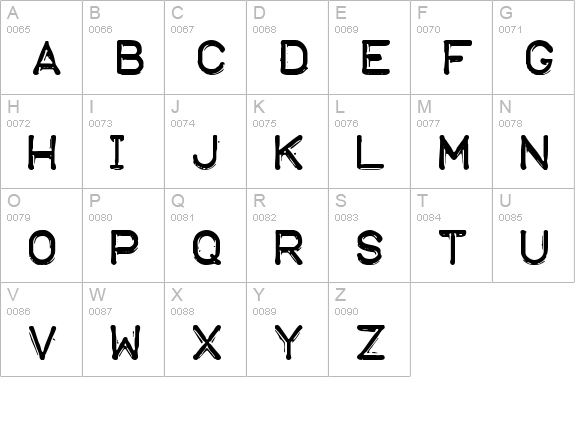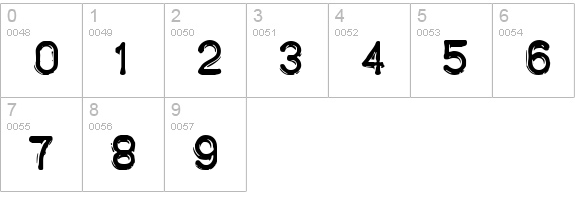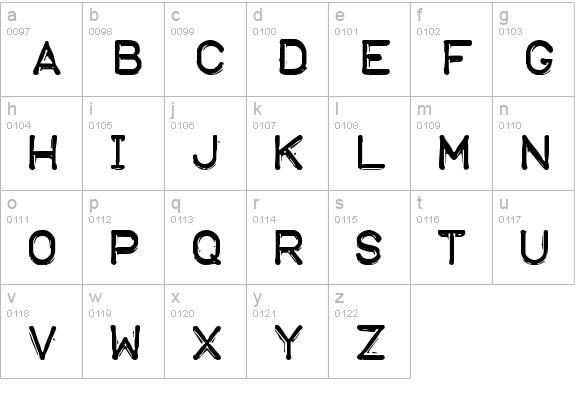
Embossing Tape 1 (BRK) Font Details
Embark on a journey through time with Embossing Tape 1 (BRK) font, a timeless and elegant typeface reminiscent of classic embossed labels. This versatile font exudes sophistication and charm, making it perfect for a wide range of design projects. The intricate embossed details add a touch of luxury and refinement to any text, making your words truly stand out. The best part? Embossing Tape 1 (BRK) font is available for free download at FontsMarket.com, allowing you to add a touch of class to your designs without breaking the bank. Whether you're creating invitations, branding materials, or signage, this font is sure to elevate your project to the next level. Embrace the classic beauty of Embossing Tape 1 (BRK) font and let your creativity shine.